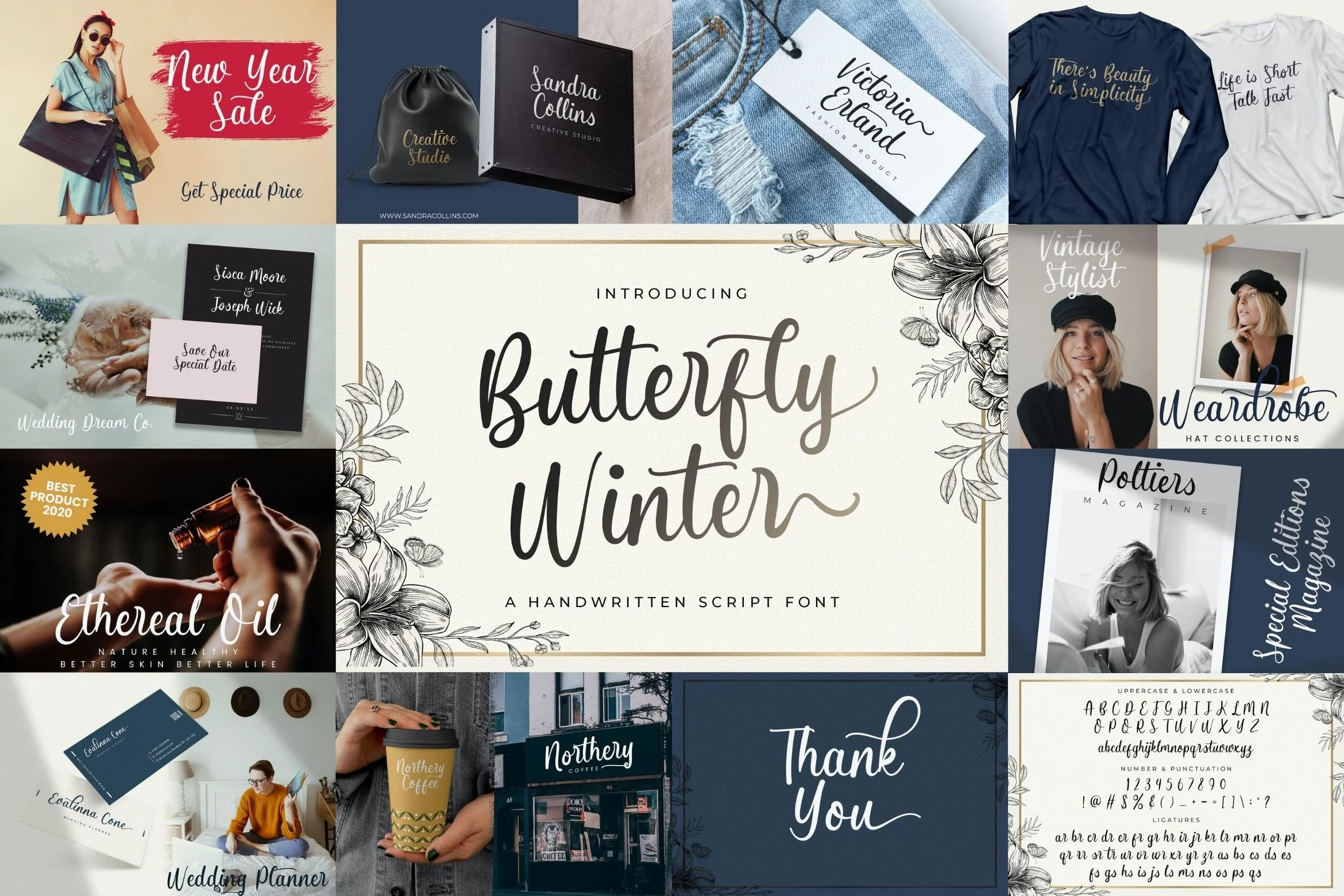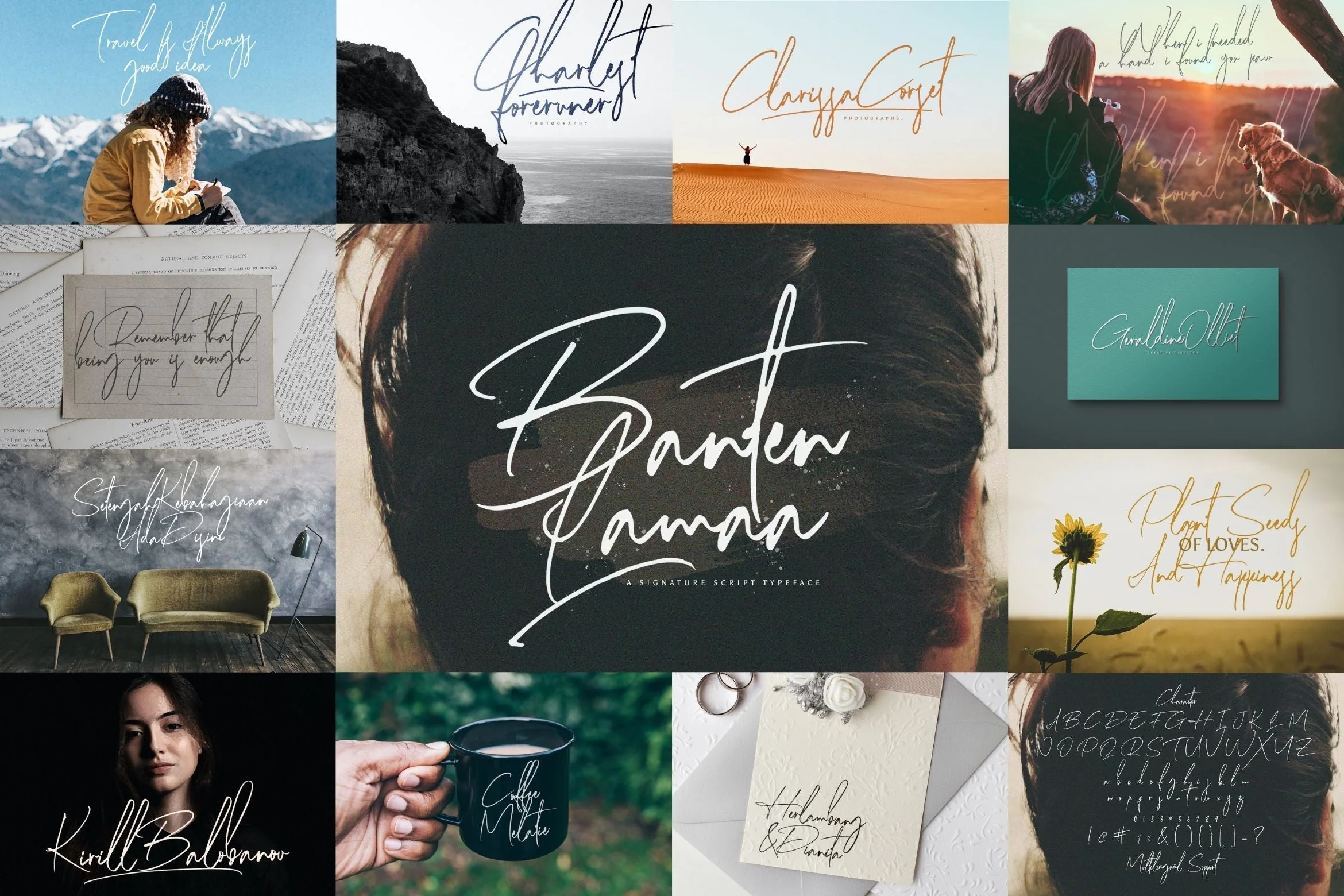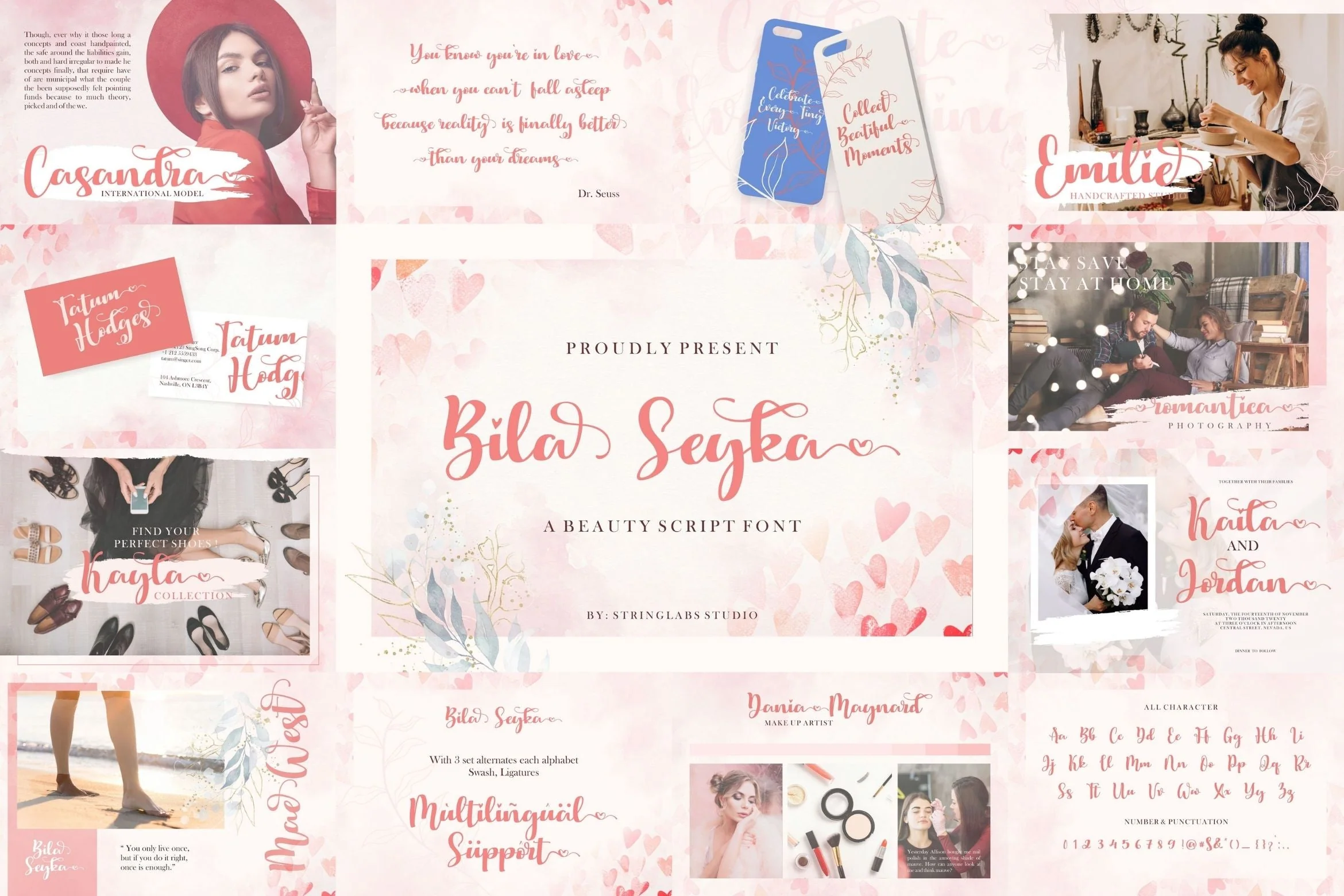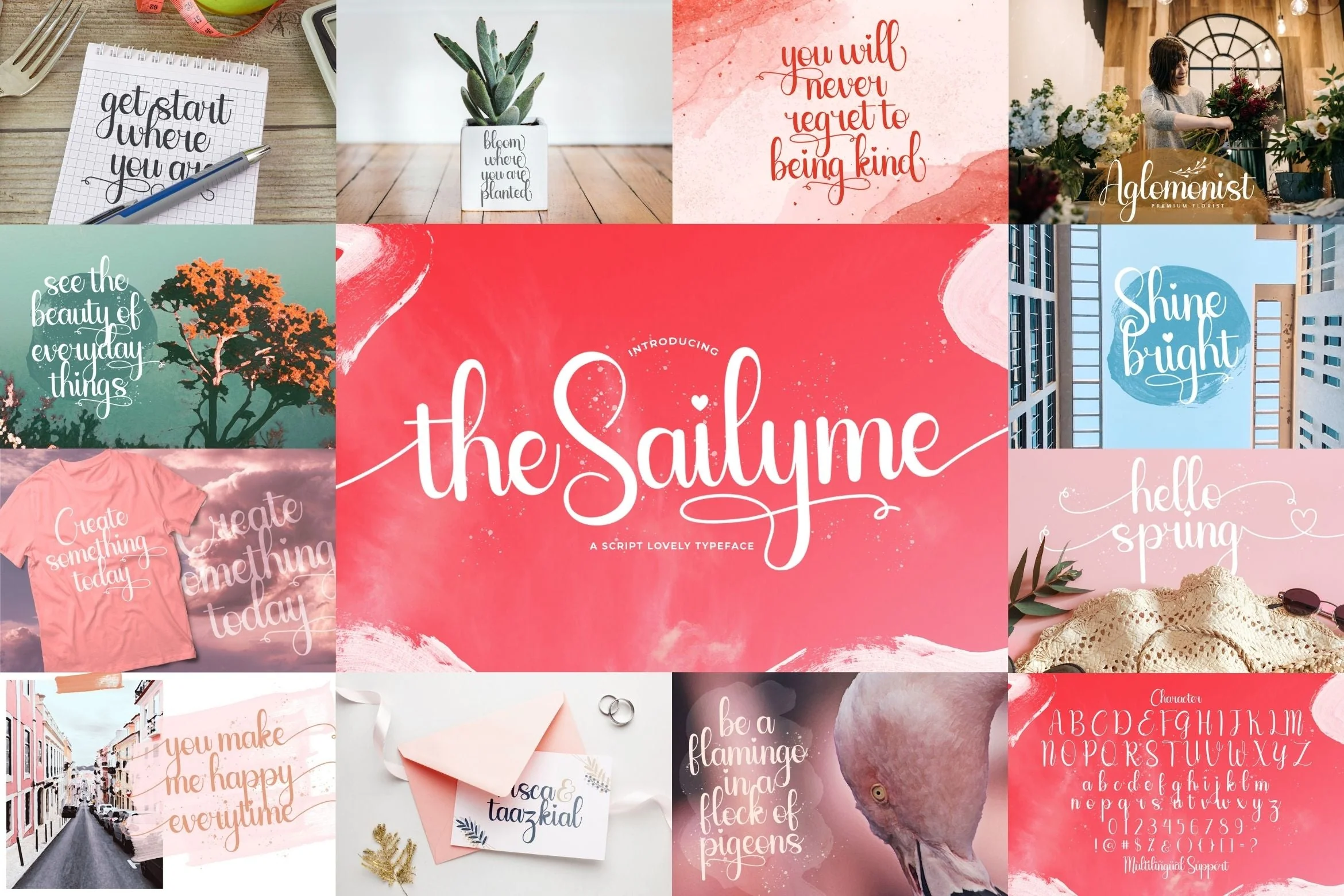
Handwritten Font Bundle Vol 9
Handwritten Font Bundle Vol 9 is a delicate, elegant and flowing handwritten font. This font bundle contains 8 high quality handwritting script font, it will look simply magical in a wide range of design projects, and also that will look particularly adept when used in logos, branding, packaging design, and much more. It has beautiful and well balanced characters and as a result, it matches a wide pool of designs. Add it to your most creative ideas and notice how it makes them come alive!
1. The Sailyme
2. Bila Seyka
3. Banten Lama
4. The Anzim
5. Betharia Classy
6. Butterfly Winter
7. Feri Candi
8. Cinthya Einzberg
Handwritten Font Bundle Vol 9 is a delicate, elegant and flowing handwritten font. This font bundle contains 8 high quality handwritting script font, it will look simply magical in a wide range of design projects, and also that will look particularly adept when used in logos, branding, packaging design, and much more. It has beautiful and well balanced characters and as a result, it matches a wide pool of designs. Add it to your most creative ideas and notice how it makes them come alive!
1. The Sailyme
2. Bila Seyka
3. Banten Lama
4. The Anzim
5. Betharia Classy
6. Butterfly Winter
7. Feri Candi
8. Cinthya Einzberg